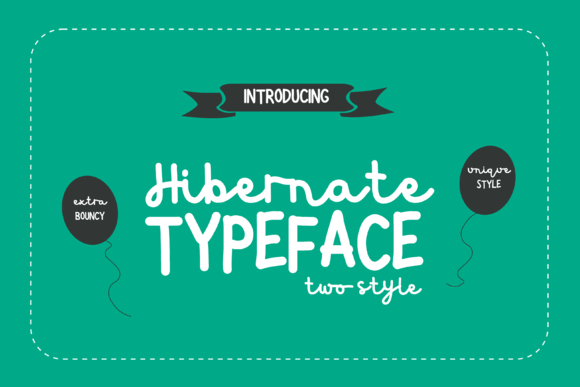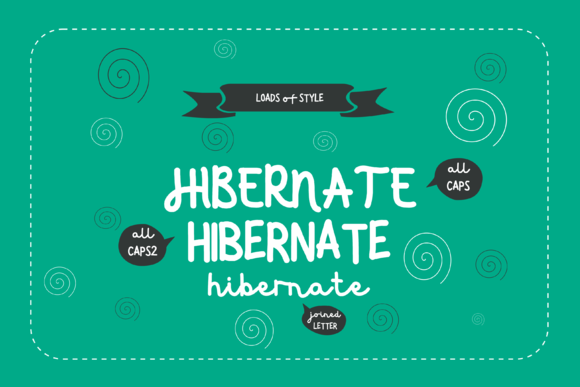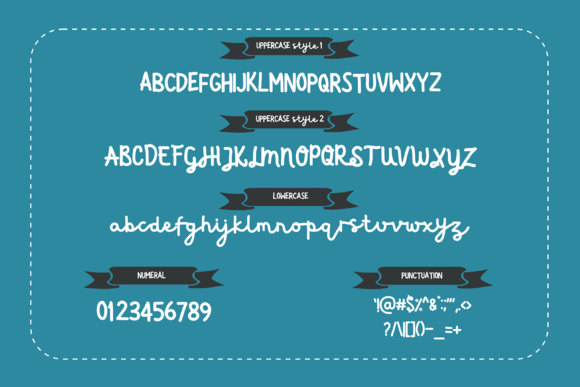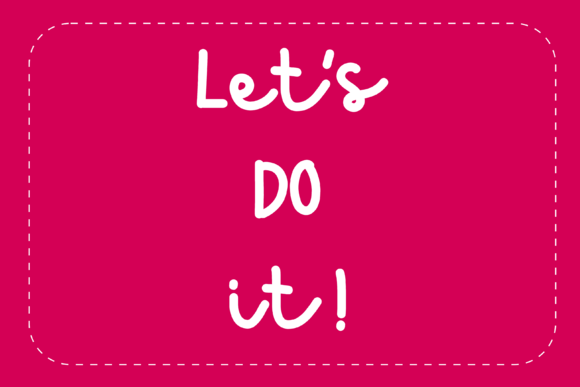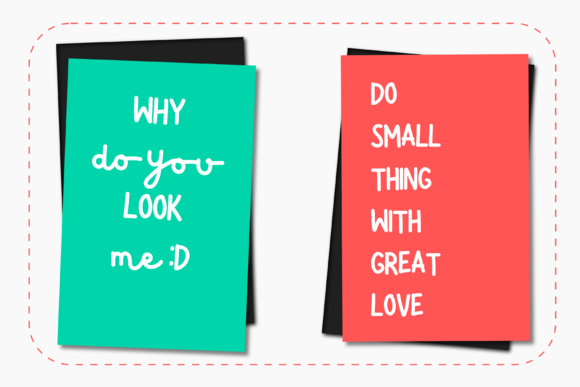
Hibernate Font
About Hibernate Font
Hibernate is a beautiful typeface which can be used for various purposes such as: headings, logos, badges, posters, book covers, news papers and much more!